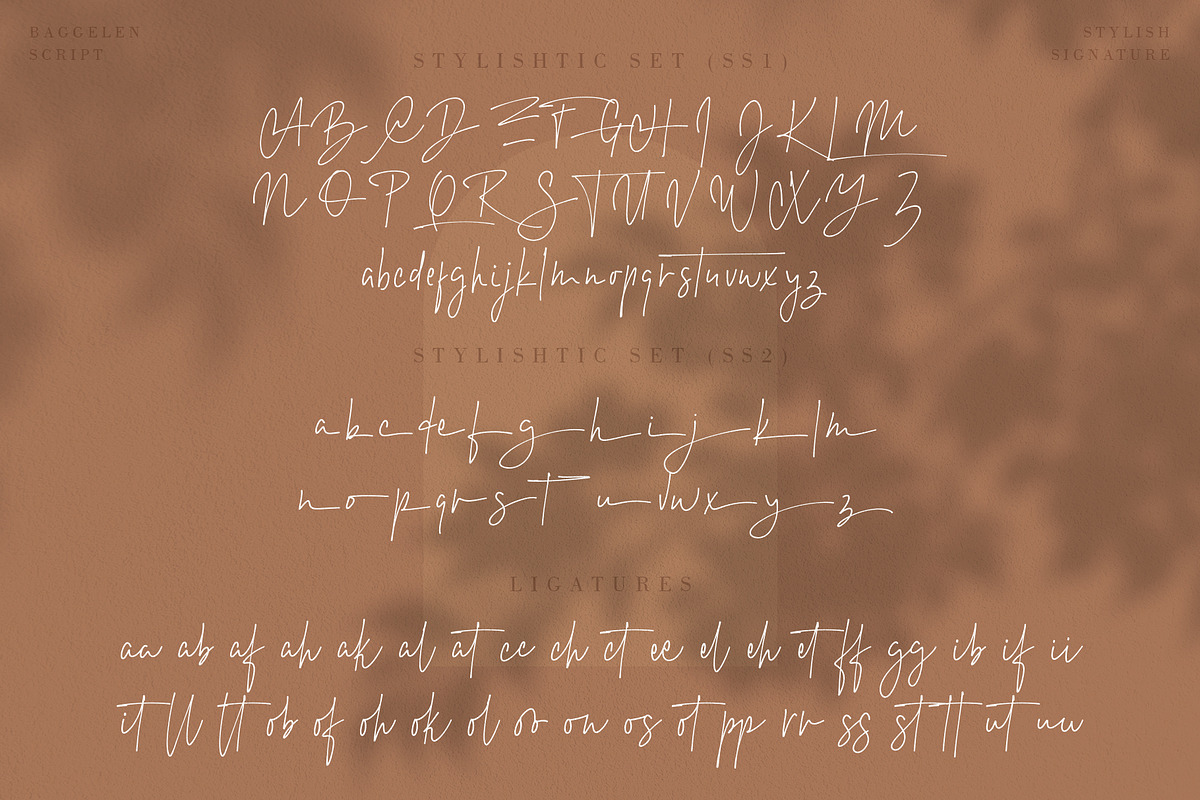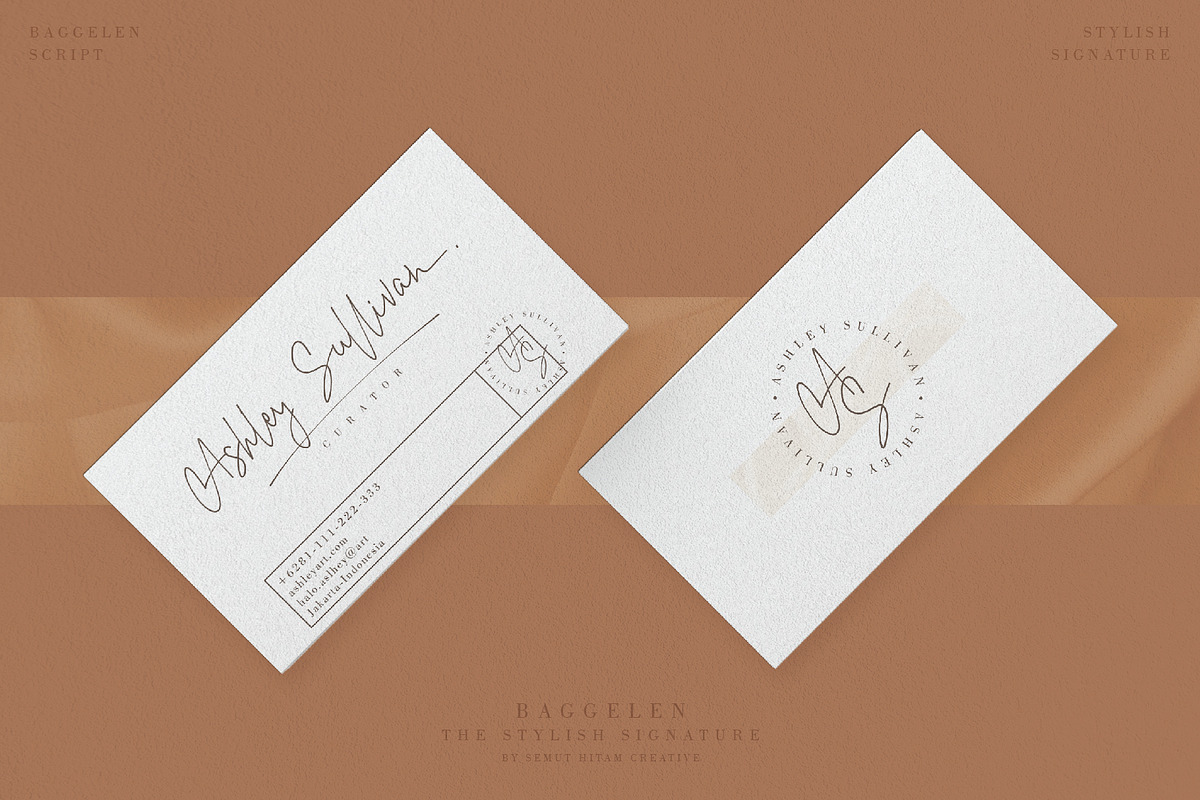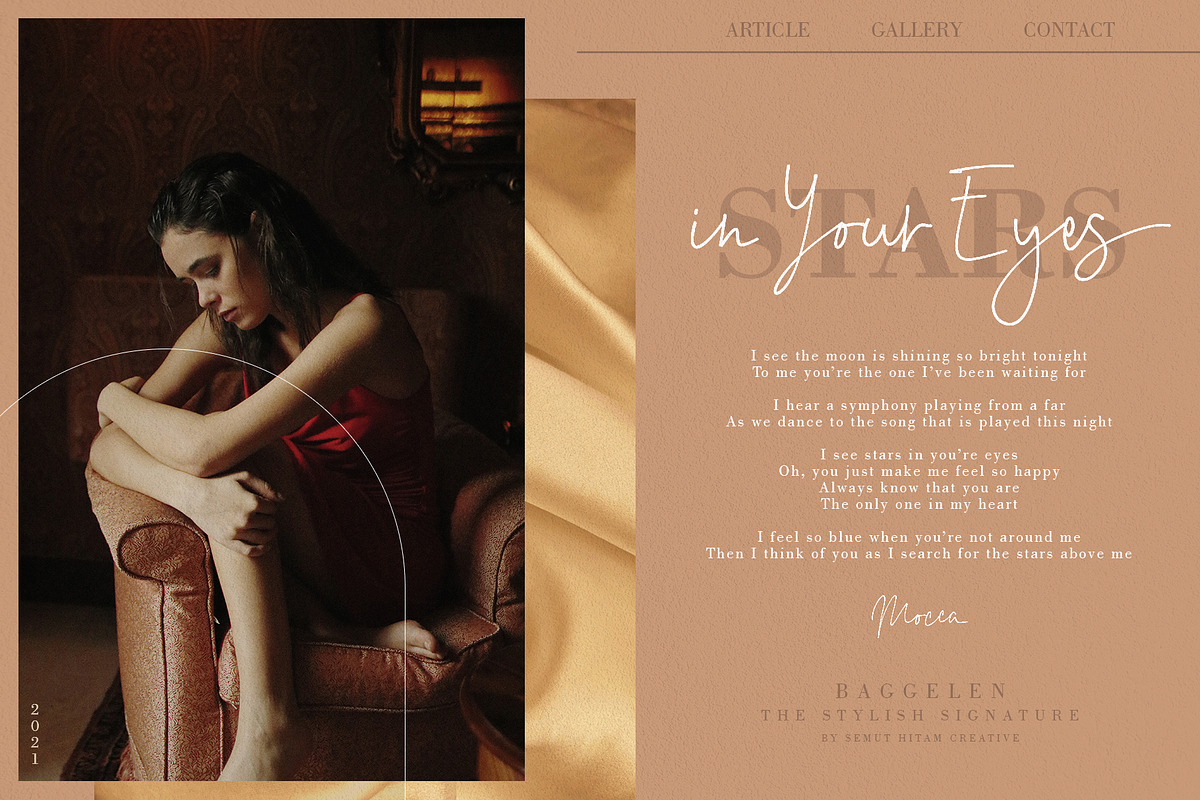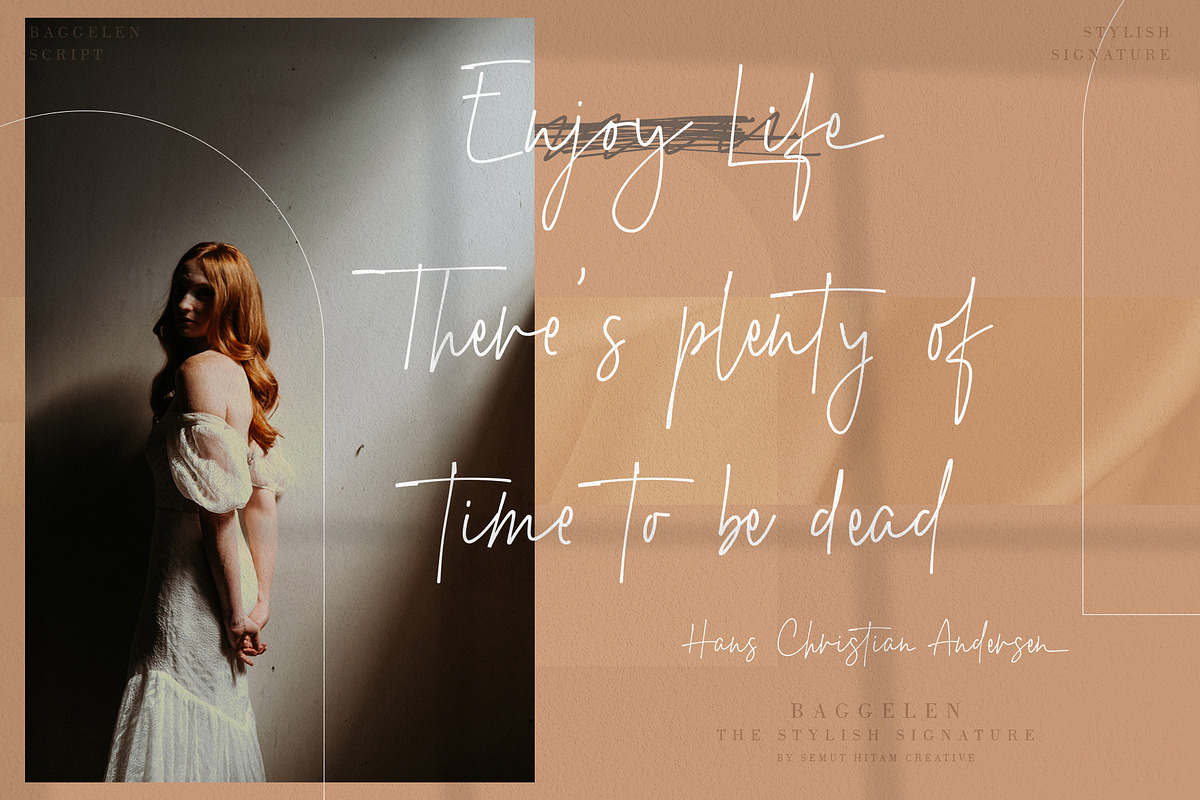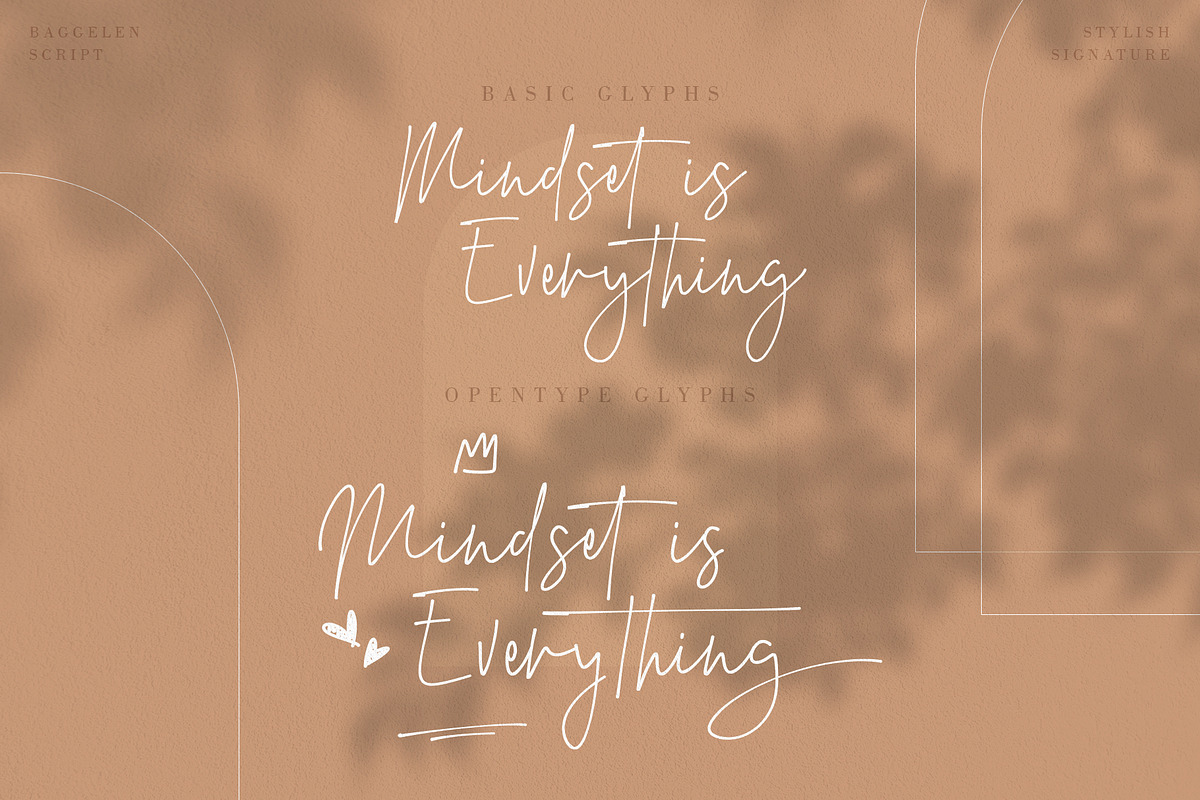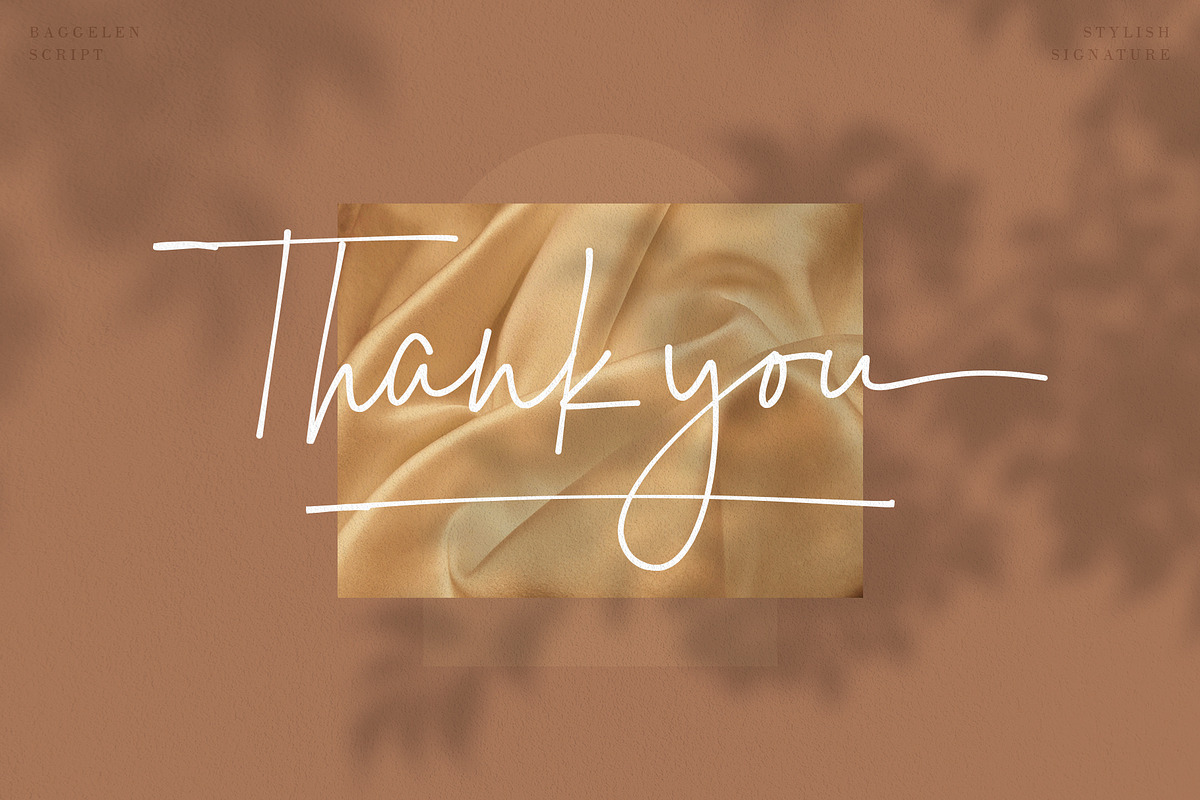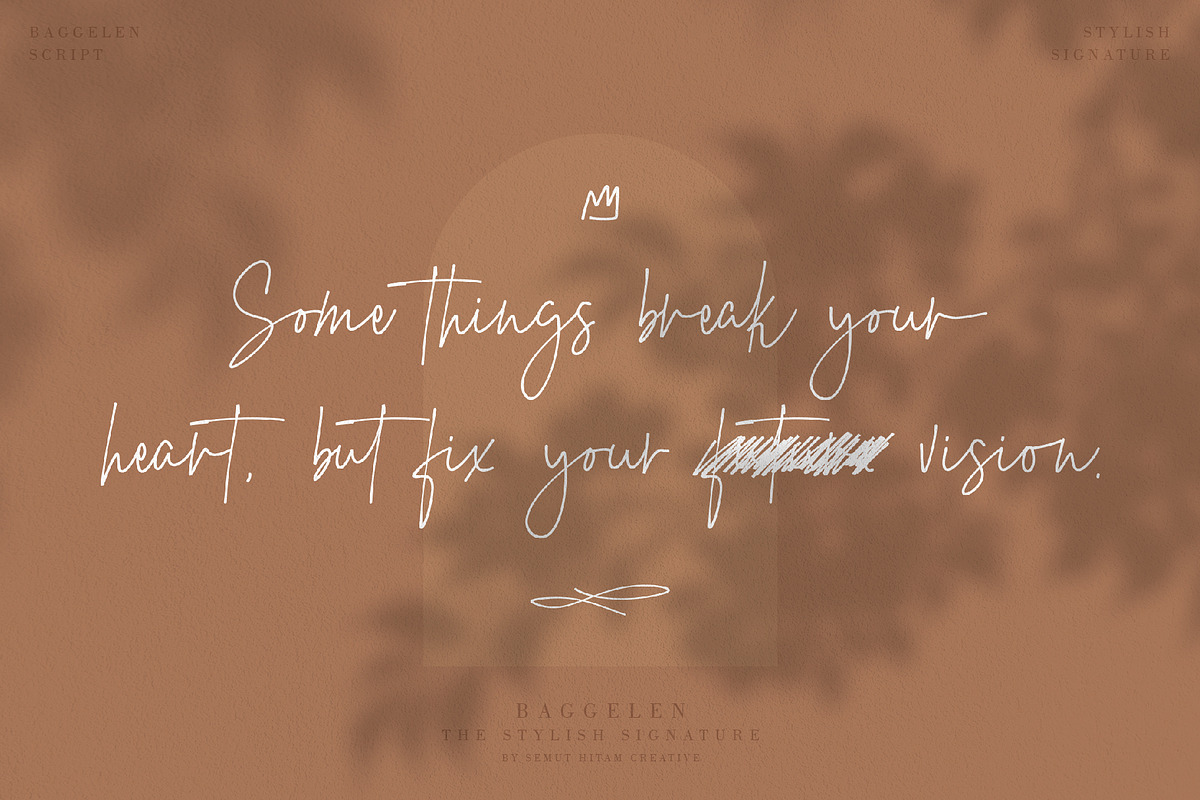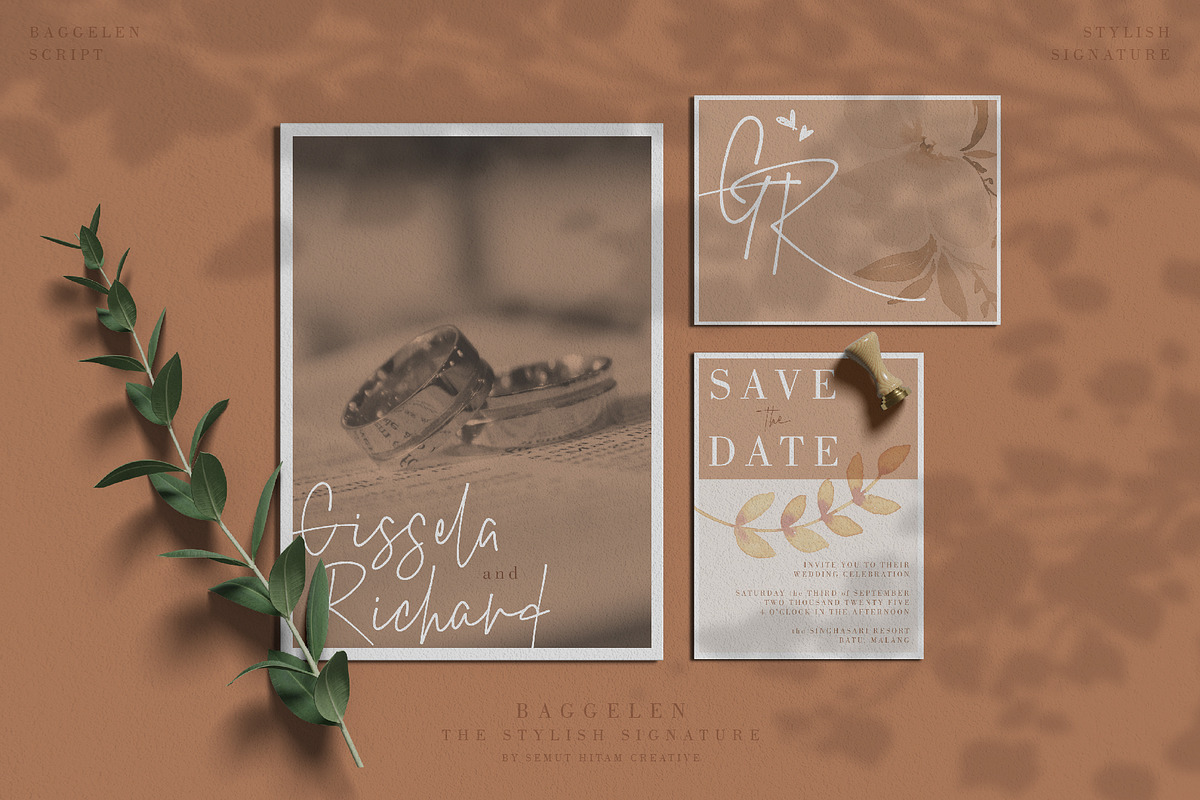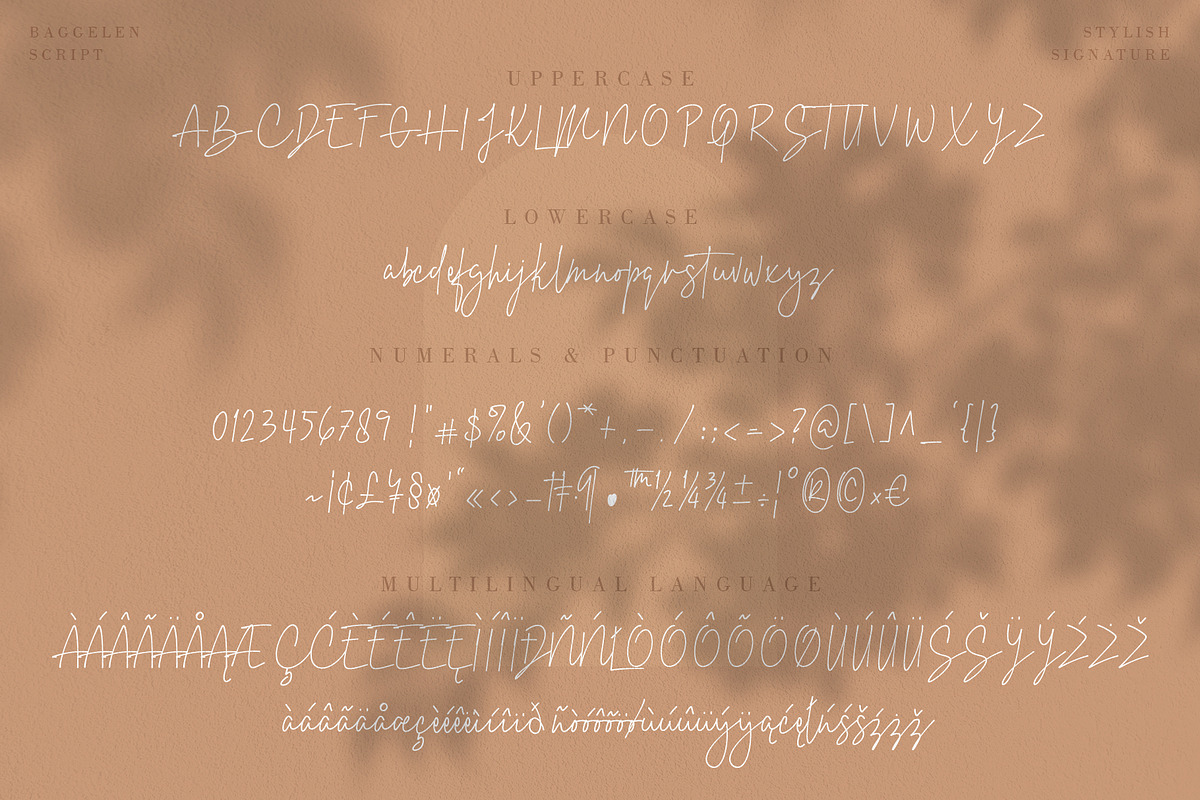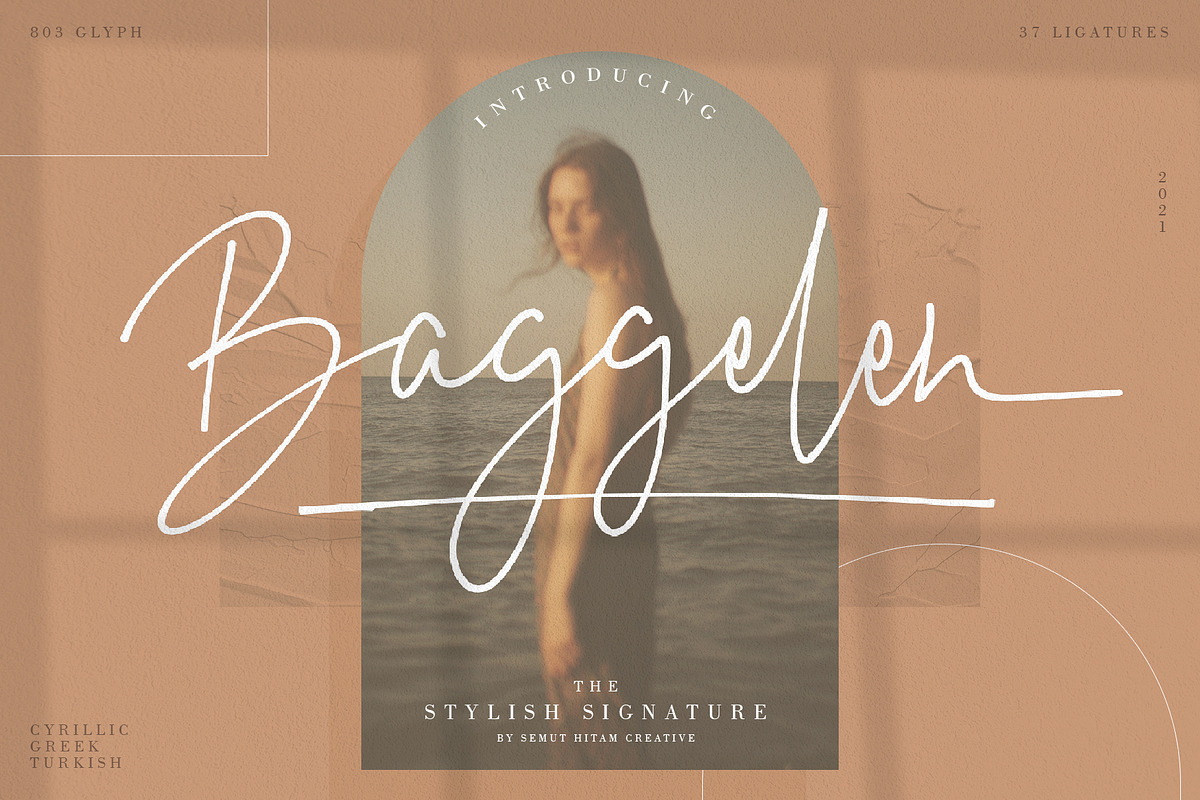
Baggelen - Stylish Signature
Baggelen is stylish signature script font, Very suitable for: branding needs, wedding invitations, business cards, and for other print needs...
Baggelen Includes full set of elegant uppercase, lowercase letters, numbers, punctuation, multilingual language, and various ligatures. All lowercase have 2 ending variations. And will give you a real handwriting impression.